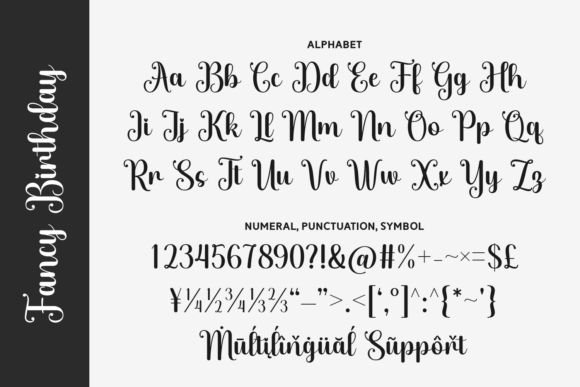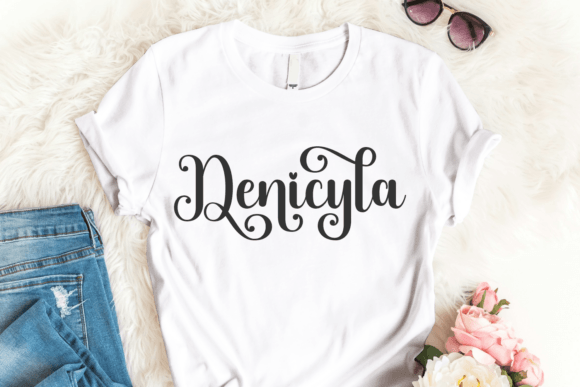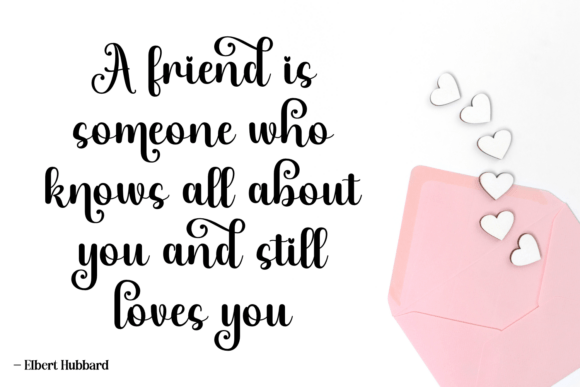
Fancy Birthday Font
Fancy Birthday is a cheerful handwritten script font filled with charm and celebration. Its playful swashes and heartwarming details make it perfect for party invitations, greeting cards, festive designs, and fun branding projects. Whether you’re designing for birthdays, holidays, or any joyous occasion, Fancy Birthday adds a delightful and lively touch to your creative work.